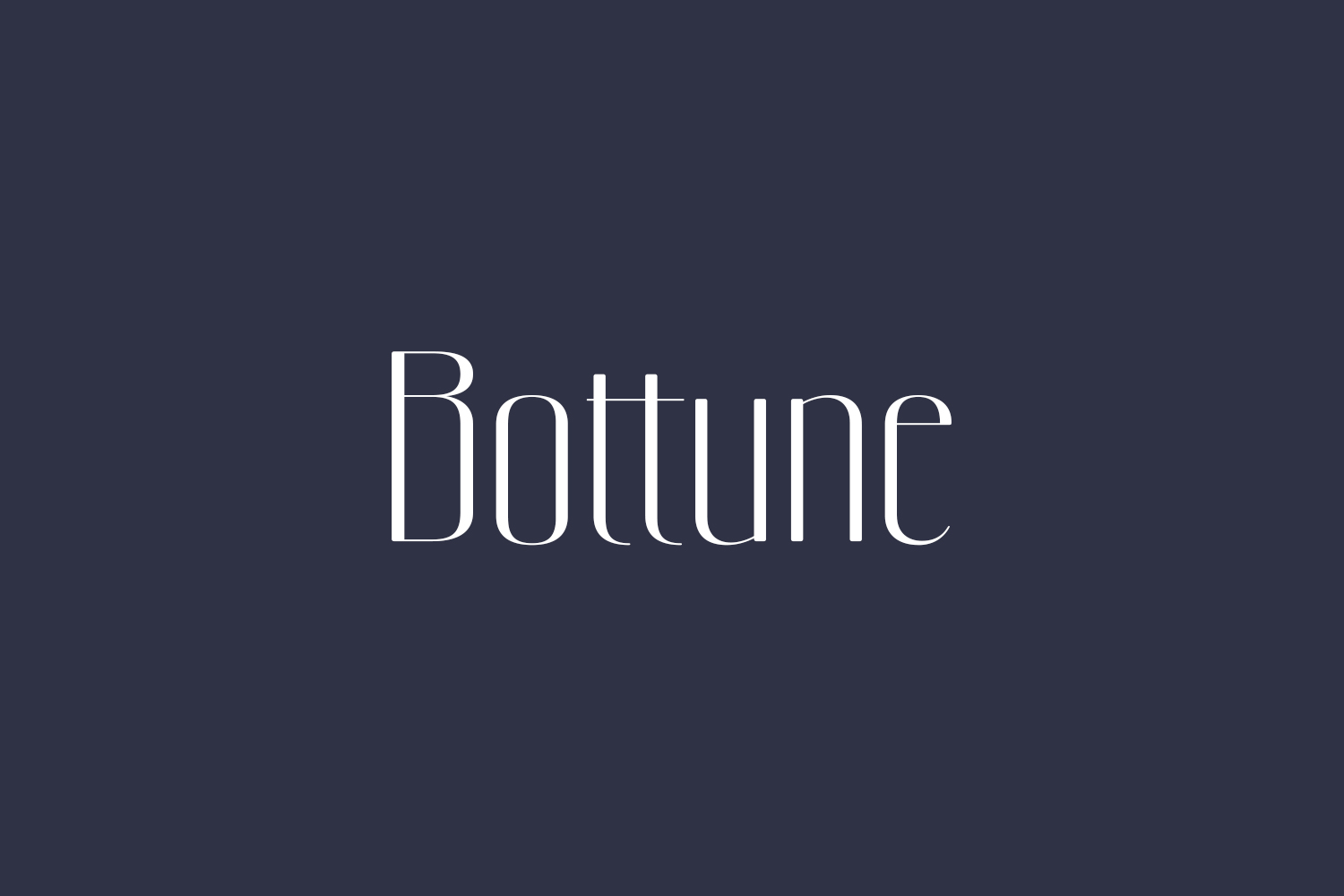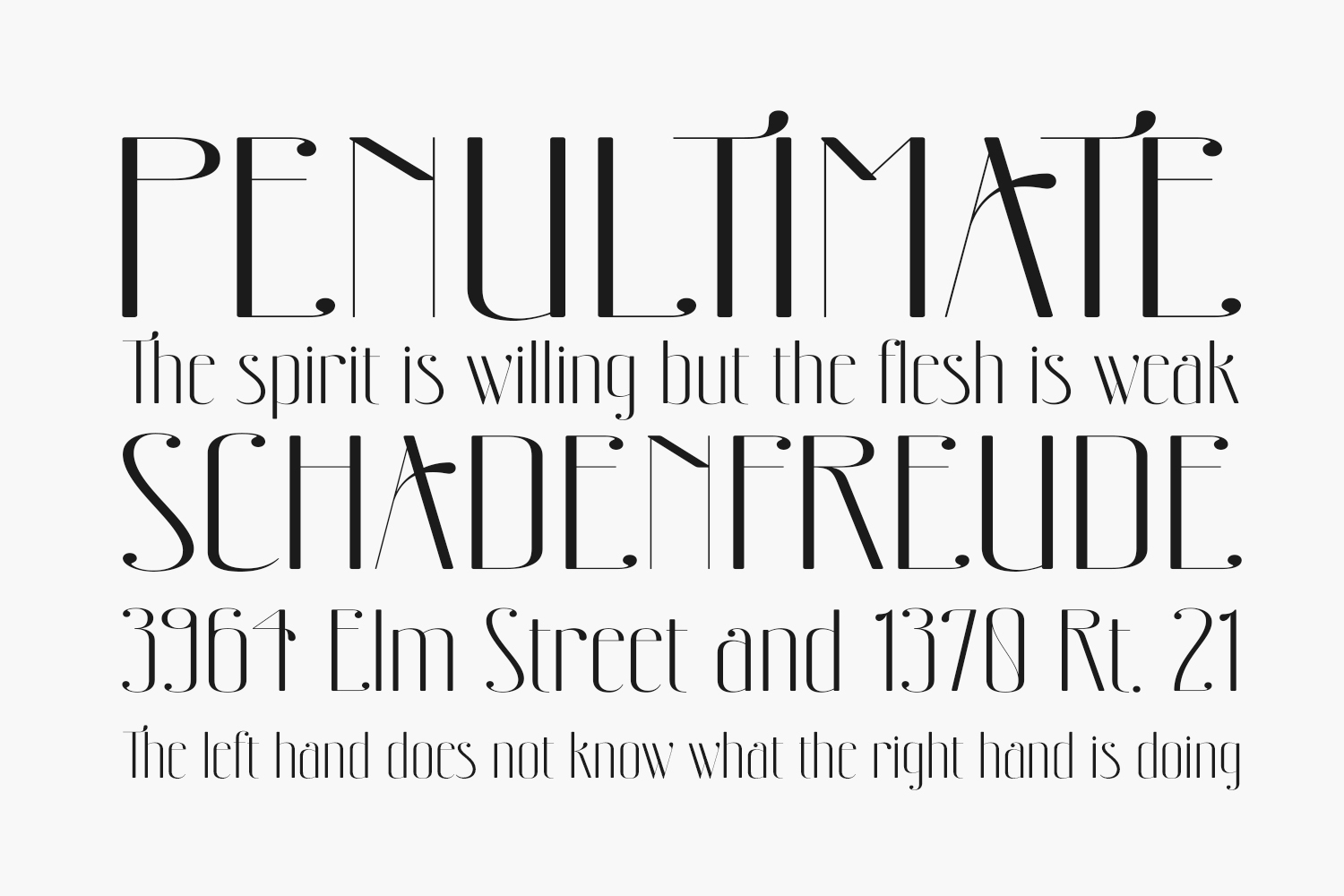
Bottune Free Font is a classic and casual slab serif font, best used as a display for headings, logos, branding, magazines, product packaging, and invitations. Bottune comes with clean lines and smooth curves, giving any project an extra touch of class. Bottune Free Font is free for personal use only. Please purchase the full version for commercial use.
Designed by BrandSemut